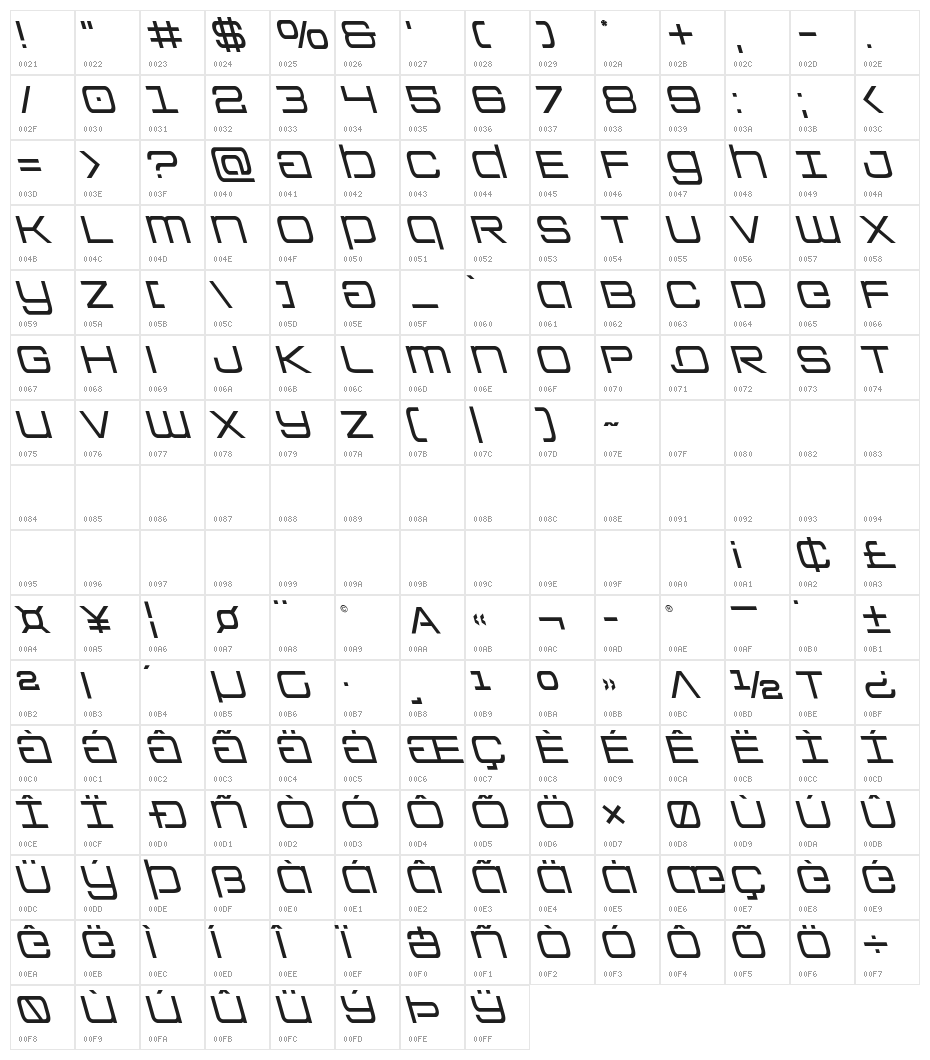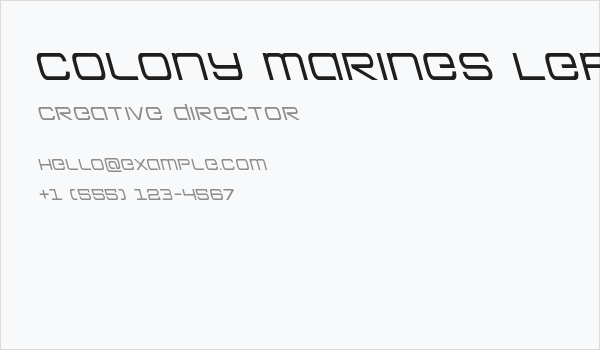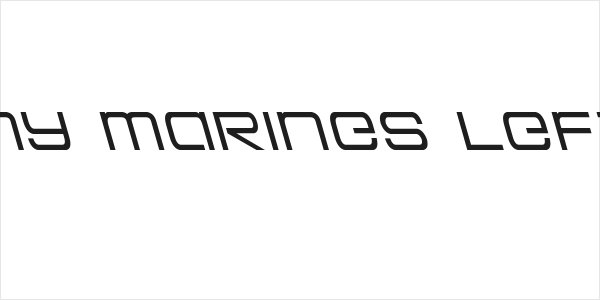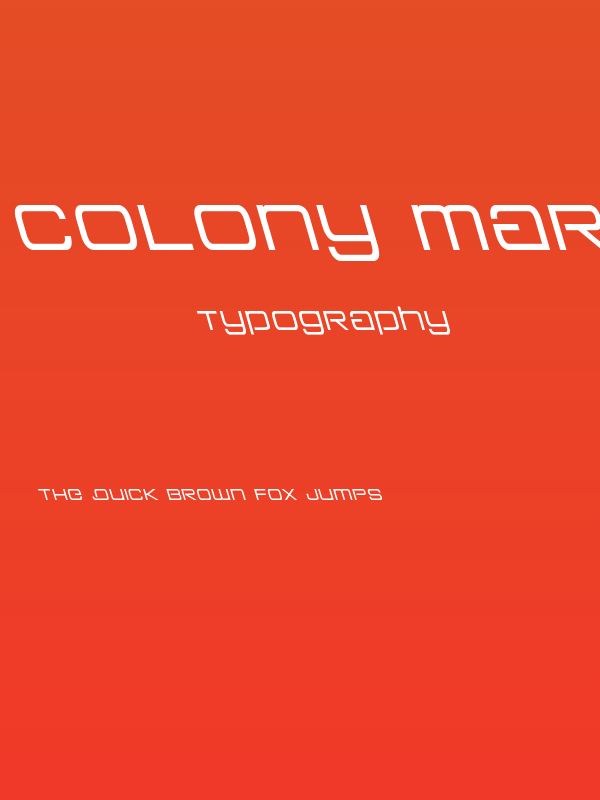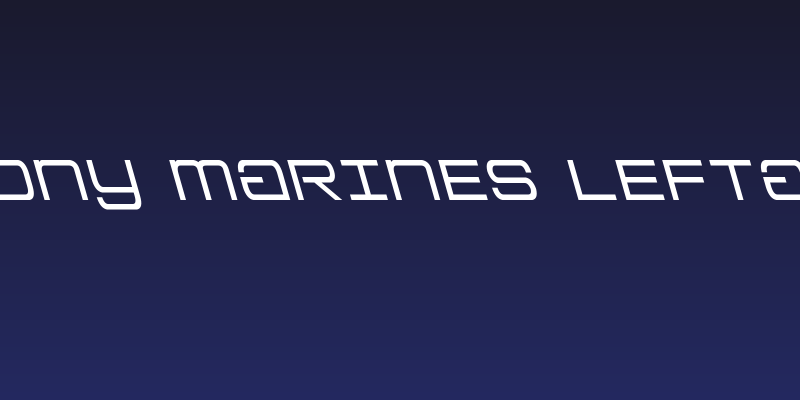
Colony Marines Leftalic Font
Colony Marines Leftalic Description
This font features a futuristic and angular design, characterized by its geometric shapes and sharp edges. The letters are slightly slanted, giving a dynamic and forward-moving appearance. The uppercase and lowercase characters maintain a consistent style, with a uniform stroke width that contributes to its modern aesthetic. The numerals and special characters are designed to match the overall theme, ensuring a cohesive look across all glyphs. The font's unique style makes it suitable for projects that require a contemporary and tech-inspired feel.
| Proposed Projects | Ideal for sci-fi themed projects, technology branding, video game interfaces, and modern advertising. |